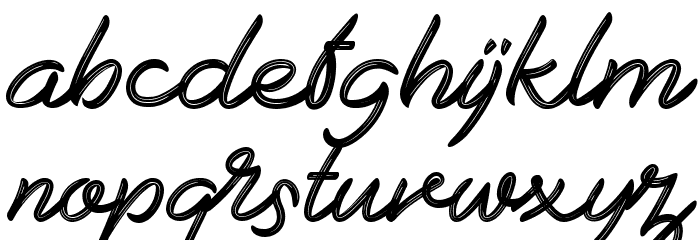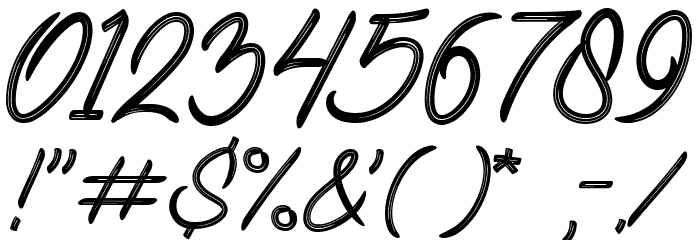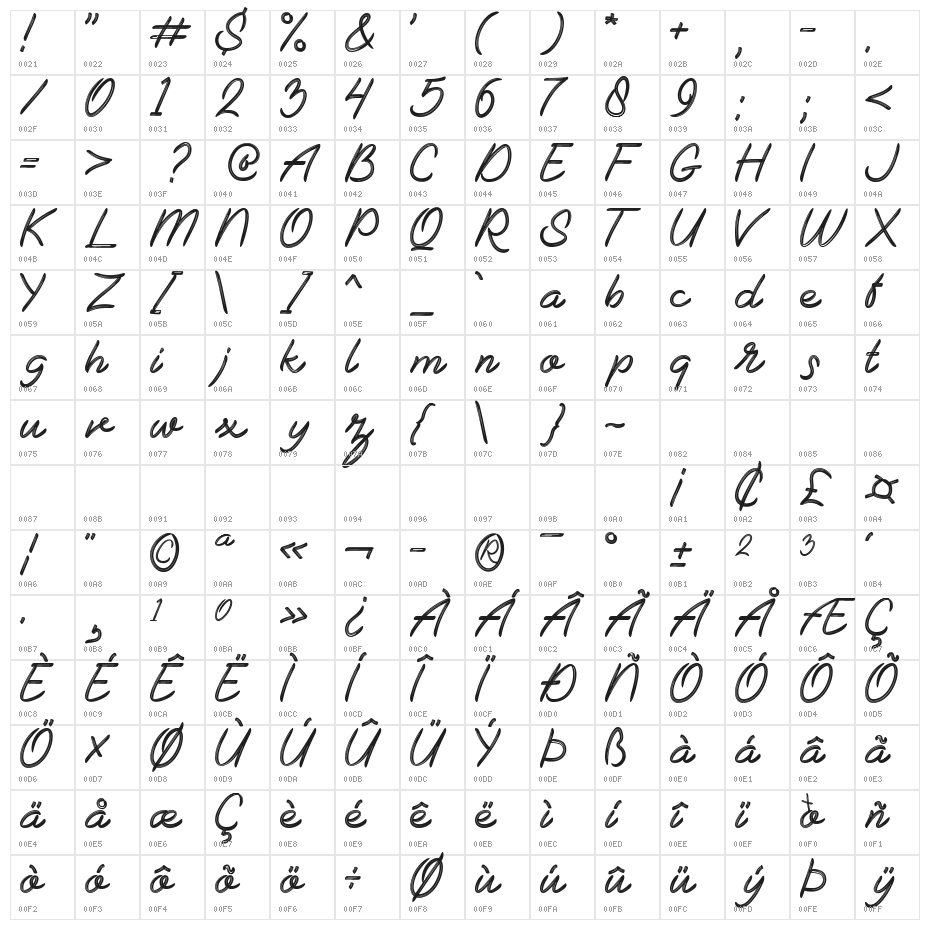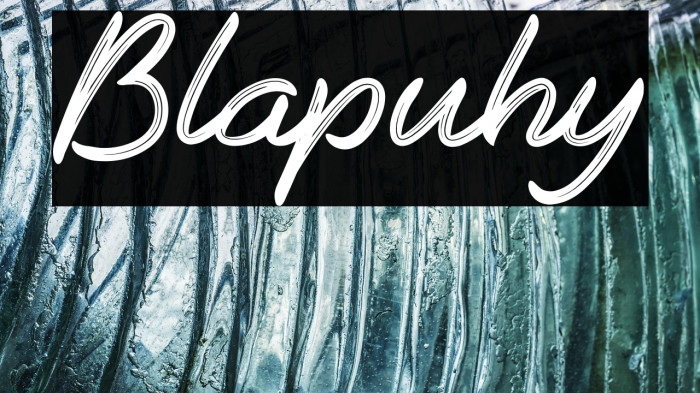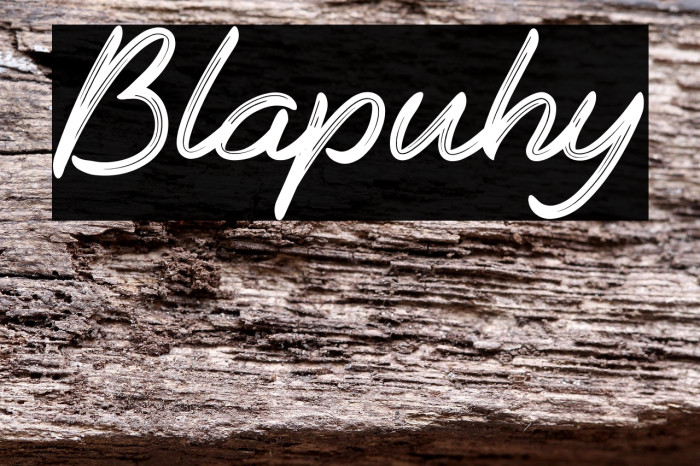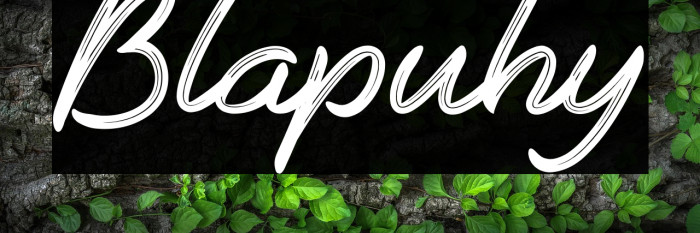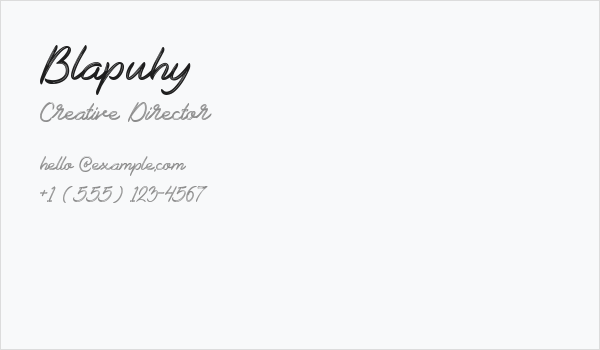
Blapuhy Font
This font features a dynamic and fluid script style, characterized by its elegant and flowing letterforms. The strokes are smooth and connected, giving it a handwritten appearance. The uppercase letters are slightly more structured, while the lowercase letters exhibit a more casual and relaxed feel. The numerals and special characters maintain the same fluidity, ensuring consistency throughout. This font's design is both stylish and legible, making it suitable for a variety of creative applications.
A fluid and elegant script font with a handwritten appearance.
- Proposed Projects: Ideal for wedding invitations, greeting cards, branding, and logo design.
- Use Case: Logos, Invitations, Branding